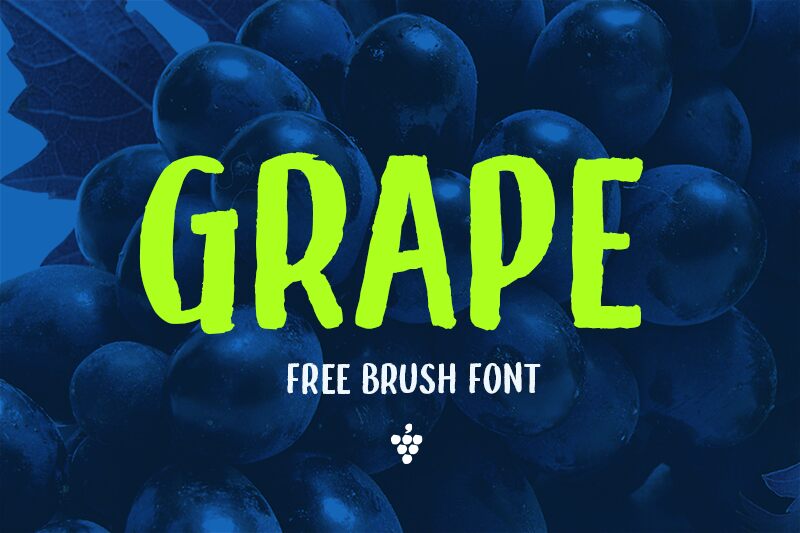
Enjoy the new brush-styled font project from phitradesign fonts. Its premium and vintage designed letters are perfect for posters, logos or bold headlines.
Grape Demo